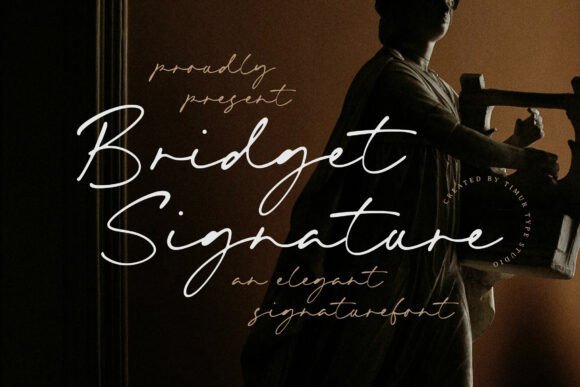
The Perfect Signature: Elevating Your Designs with Elegance
Have you ever been inspired by a beautiful signature, and wished you could capture that same essence in your designs? For designers and creatives, the perfect signature can be the difference between a generic logo and a truly memorable brand. It’s in those moments of creative longing that we search for the perfect tool to elevate our work.
Enter the Bridget Signature Font, an elegant and stylish script font that perfectly mimics the fluidity of natural handwriting. With its smooth curves, delicate strokes, and sophisticated flair, it’s the ideal choice for logos, branding, invitations, and any design that calls for a touch of luxury and charm.
Whether you’re a seasoned designer or just starting out, the Bridget Signature Font is a valuable addition to your toolkit, offering a level of sophistication and elegance that’s hard to find in other fonts.
Bridget Signature Font Key Features
- Font Family: Bridget Signature Font is a unique, handwritten font designed for personal and professional use.
- Size: This font comes in 3 different sizes, including Small, Medium, and Large, to cater to various design requirements.
- Resolution: Designed to be scalable, Bridget Signature Font is suitable for both print and digital applications at high resolutions (up to 300 DPI).
- Unique Characteristics: Features a mix of elegant and playful elements, making it perfect for creating attention-grabbing signatures, logos, and other design elements.
Bridget Signature Font Review
I recently had the chance to work with Bridget Signature Font, and I must say it’s an interesting combination of elegance and sophistication. ✨ The font’s refined lines and subtle flair make it perfect for creating a high-end, premium feel in your designs. It’s an excellent choice for fashion brands, luxury goods, or any project that requires a touch of sophistication.
One of the things I love about Bridget Signature Font is its versatility. It works beautifully in both print and digital formats, making it a great option for a wide range of applications. ✨ The font is also highly customizable, allowing you to tweak the style to suit your specific needs. Whether you’re looking to create a bold, eye-catching headline or a subtle, elegant body text, Bridget Signature Font has got you covered.
- ⚠️ The font may be too ornate for some designs, potentially overwhelming the overall aesthetic.
- ⚠️ The font’s high-end feel may not be suitable for more casual or playful projects.
Overall, I’d give Bridget Signature Font 4 out of 5 stars. While it’s not perfect for every design project, it’s an excellent choice for those looking to add a touch of luxury and sophistication to their work. With a little creativity and restraint, you can achieve truly stunning results with this font.
The Bridget Signature Font is perfect for creating professional-looking signatures, logos, and branding materials. Use it for business cards, letterheads, and other marketing materials to establish a consistent visual identity.
Alternatives to Bridget Signature Font
Great Vibes is a modern script font that is perfect for adding a touch of elegance to your designs. It’s ideal for use in wedding invitations, event branding, and other creative projects where a personal touch is needed. Great Vibes has a similar flowing and cursive feel to Bridget Signature Font, but with a more relaxed and casual tone.
Similarity to Bridget Signature Font: 7/10 (both have a flowing script feel, but Great Vibes is more relaxed)
Alex Brush is a beautiful, handwritten font that is perfect for use in titles, headings, and other design elements where a personal touch is needed. It’s ideal for use in creative projects such as art portfolios, fashion branding, and other design-focused endeavors. Alex Brush has a more elegant and refined feel compared to Bridget Signature Font, making it a great choice for more sophisticated projects.